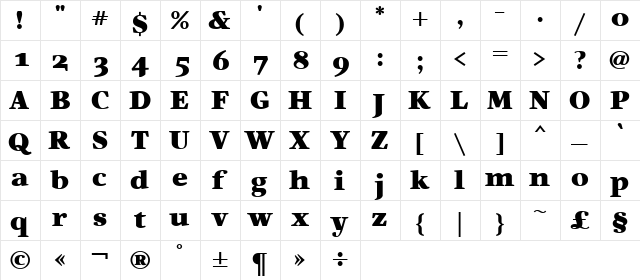
Artemius SN Black Regular
| Foundry | Letterhead studio especially for ArtLebedev Group. Created by Yuri Gordon |
Design Context for Artemius SN Black Typeface
Artemius SN Black is a composed and adaptable typeface that performs quietly and consistently across a wide range of design contexts.